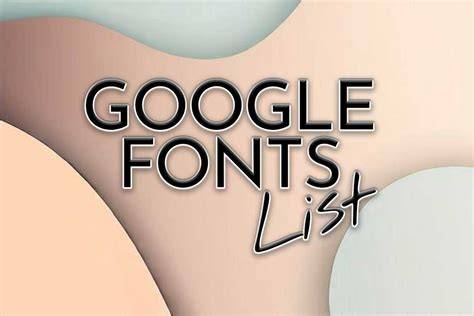
The Pros And Cons Of Using Google Fonts
What Are Google Fonts?
Google Fonts is a collection of free fonts developed by Google. The fonts are open source, meaning anyone can use them for free. The collection includes a variety of font styles, including serif, sans-serif, slab serif, display, handwriting, and monospace. The fonts are available for use on any device, from desktop computers to mobile devices. They can be used for a variety of purposes, including website design, graphic design, and even printing.
The Pros of Using Google Fonts
One of the biggest benefits of using Google Fonts is that they are completely free. This makes them an ideal choice for anyone who wants to create a website on a budget. The fonts are also easy to use and can be quickly implemented into a website. In addition, the fonts are optimized for both desktop and mobile devices, so they will look great on any device. Finally, the fonts are constantly being updated and improved, so they will always look their best.
The Cons of Using Google Fonts
One of the biggest drawbacks of using Google Fonts is that there is a limited selection of fonts available. This means that if you are looking for a specific font, you may not be able to find it in the collection. In addition, the fonts can be slow to load and may cause performance issues on some devices. Finally, the fonts are not always updated with the latest versions of web browsers, so they may not display correctly on newer devices.
Google Fonts is an excellent choice for anyone looking for a free, easy to use font collection. They are constantly being updated and improved, and they are optimized for both desktop and mobile devices. However, the limited selection of fonts may be an issue for some users, and the fonts can be slow to load. Overall, Google Fonts is a great choice for anyone looking for a free, easy to use font collection.